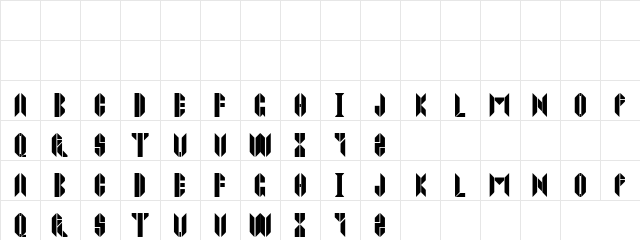
Tips Sandra Regular
Design Context for Tips Sandra Typeface
Tips Sandra is a composed and adaptable typeface that performs quietly and consistently across a wide range of design contexts.